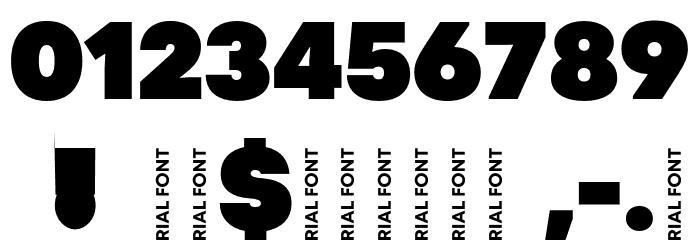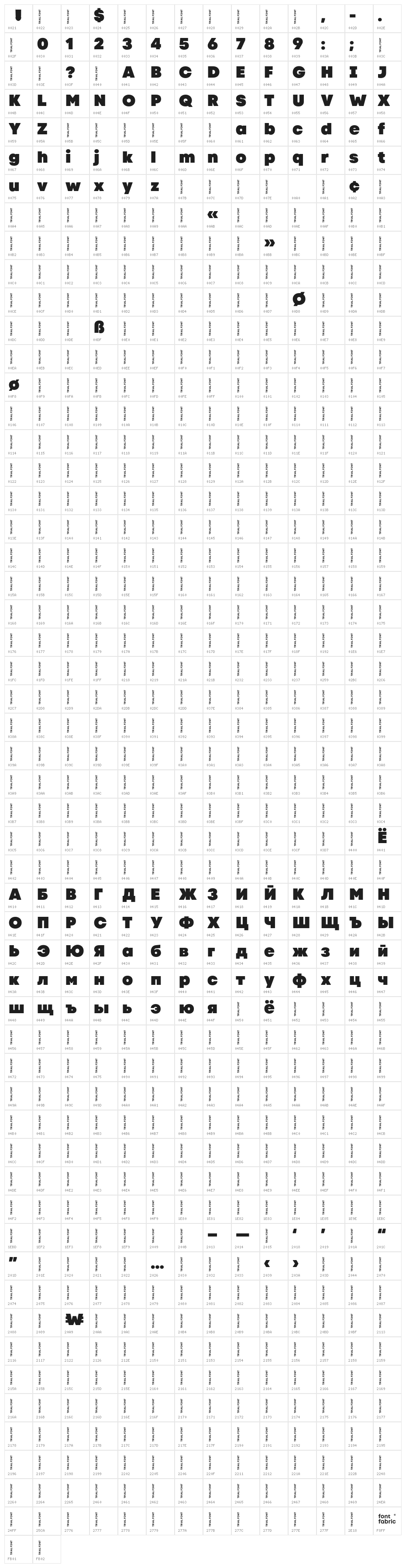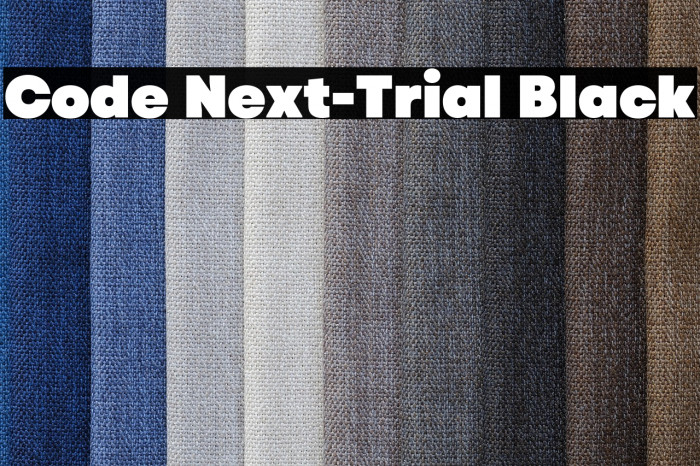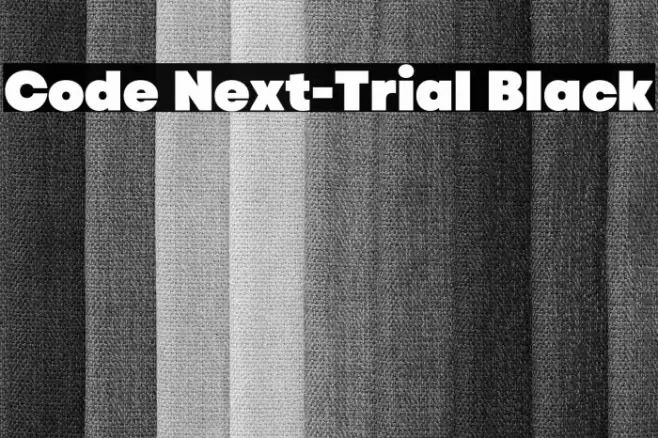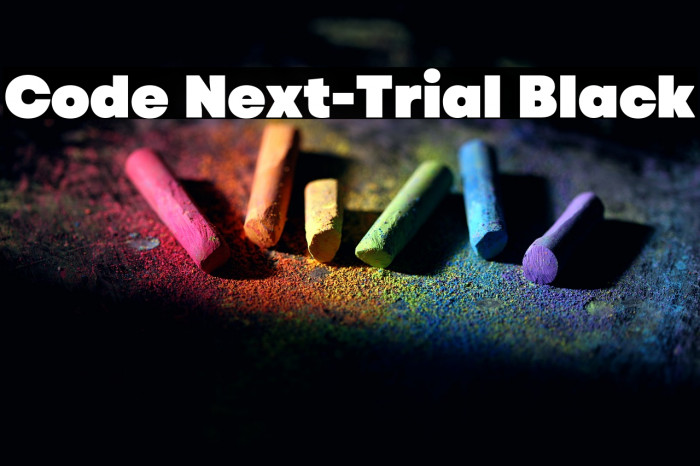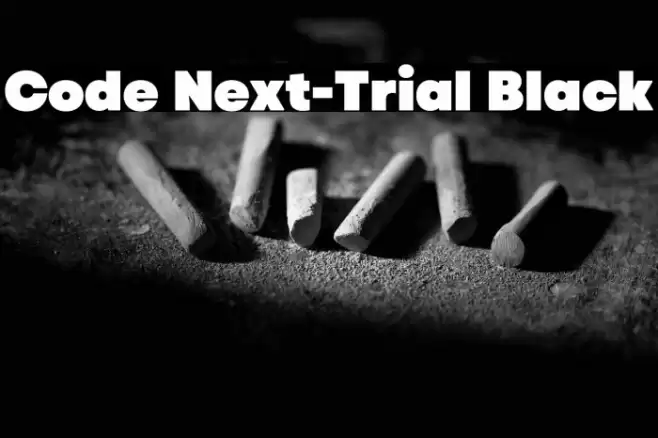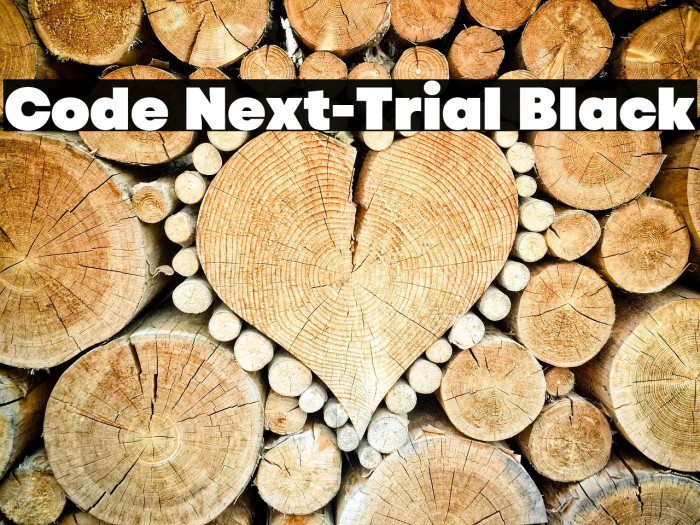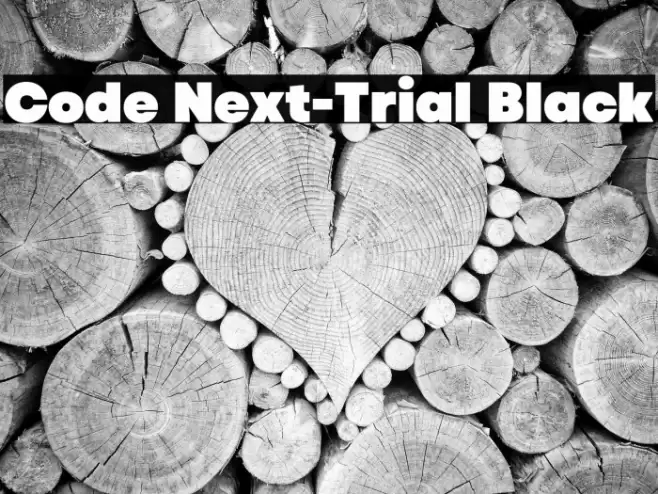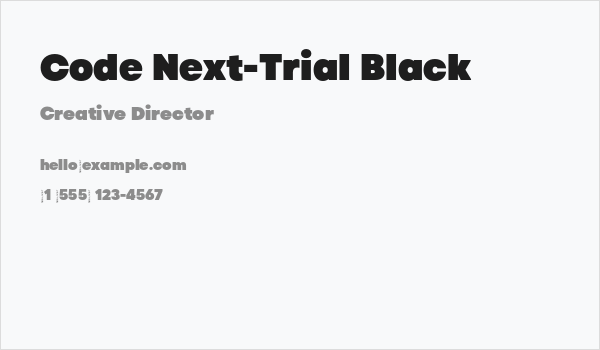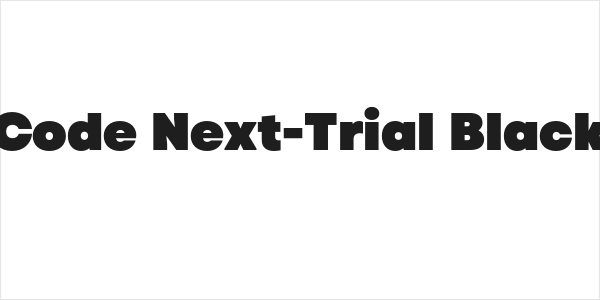
Code Next-Trial Black Font
Code Next-Trial Black Description
This font features bold, thick strokes with a strong presence, making it ideal for impactful designs. The characters are uniformly wide, providing a sense of stability and strength. The uppercase and lowercase letters maintain a consistent weight, enhancing readability. The numerals are equally bold, ensuring they stand out in any context. Special characters are designed with the same robust style, making them suitable for attention-grabbing headlines or logos. The overall appearance is modern and assertive, perfect for projects that require a commanding visual element.
| Proposed Projects | Ideal for branding, headlines, posters, and any design requiring a bold statement. |